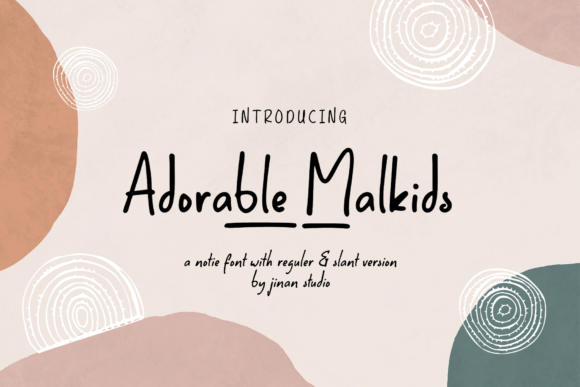
Adding a Pinch of Whimsy to Your Designs
You know that moment when you’re brainstorming a new project and you’re stuck between ideas? You want something that’s going to capture the essence of your message, something that’s going to make it stand out. For me, that moment often comes when I’m searching for the perfect font to bring my design to life.
That’s where Adorable Malkids Font comes in – a uniquely delightful note-style font that exudes a playful and youthful air. Whether you’re creating quotes, branding, festive greeting cards, or any project that needs a sprinkle of joy, Adorable Malkids Font is the ideal choice. Its charm and whimsy make it a valuable addition to any designer’s toolkit, adding a captivating touch to your designs that’s sure to delight.
Adorable Malkids Font Key Features
- Unique Characteristics: Adorable Malkids Font features a playful, handwritten style with irregular strokes and flourishes, giving it a distinctive and charming appearance.
Adorable Malkids Font Review
At first glance, Adorable Malkids Font is a playful, whimsical font that is sure to catch the eye. ✨ The unique combination of round shapes and bold lines makes it perfect for creating eye-catching headings and titles. I particularly love how the font’s irregularities add to its charm, giving it a hand-drawn feel that’s hard to resist. ✨
However, I do have some reservations about the font’s usability. ⚠️ The irregularities that make the font so charming can also make it difficult to read at smaller font sizes. Additionally, the font’s lack of consistency in terms of letter spacing and kerning can lead to some awkward-looking words. ⚠️
Overall, I would say that Adorable Malkids Font is a great choice for designers who want to add a touch of whimsy to their projects. Just be sure to use it wisely and in the right context. Here are some potential uses for the font:
- Headings and titles for children’s books or educational materials
- Logo designs that need a playful, approachable feel
- Social media graphics or promotional materials that require a fun, eye-catching look
Getting the Most Out of Adorable Malkids Font
For the best results, use Adorable Malkids Font in conjunction with bold, colorful graphics and playful design elements. This font is perfect for creating whimsical and eye-catching designs that appeal to children and families.
Adorable Malkids Font is perfect for:
- Children’s book covers and illustrations
- Toy packaging and branding
- Family-friendly website and app designs